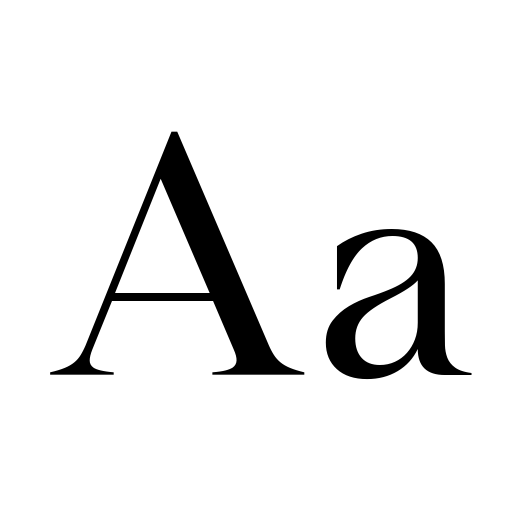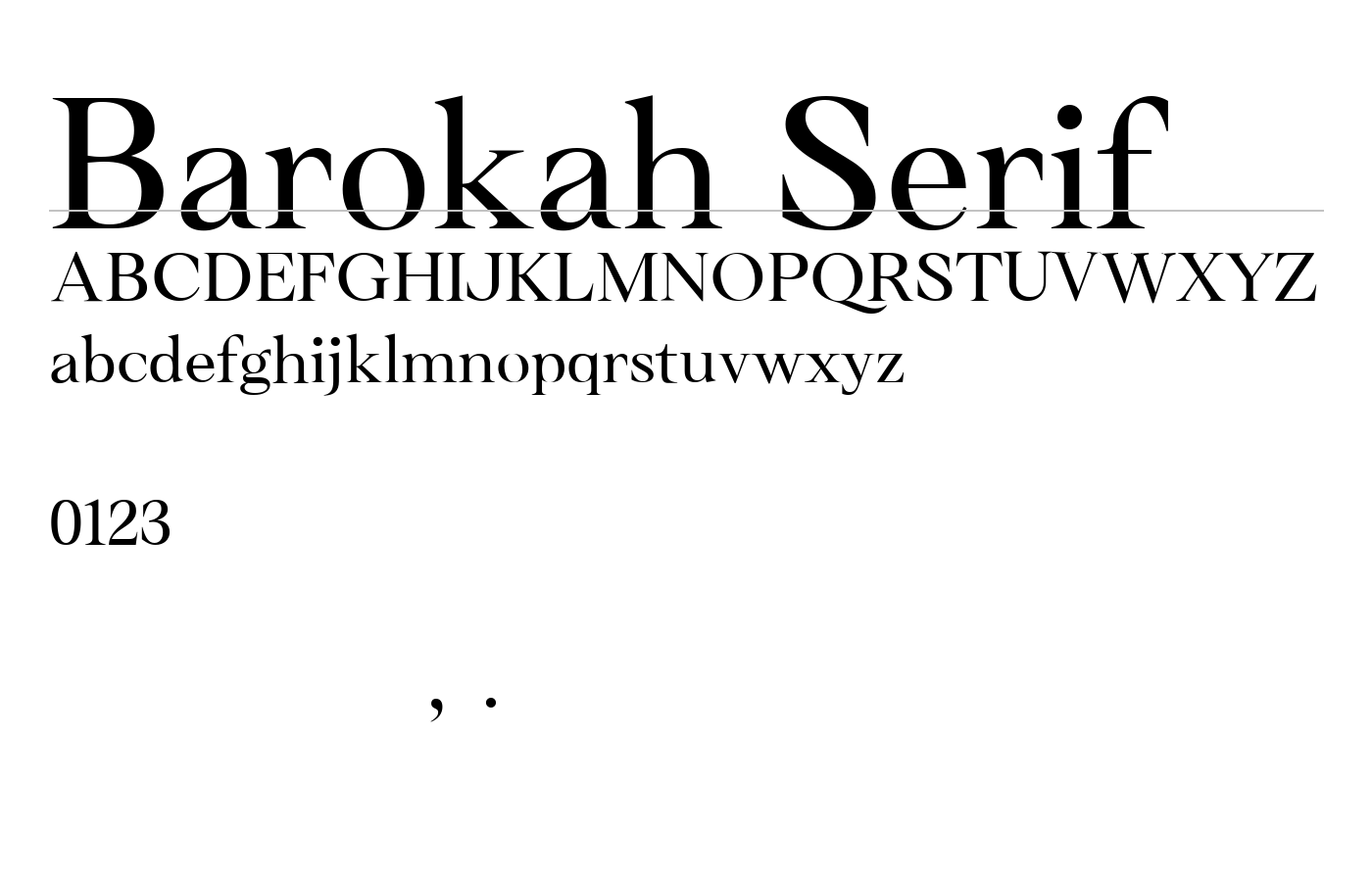
Barokah Serif is a refined serif typeface that blends classic elegance with modern clarity. It features high contrast between thick and thin strokes, delicate bracketed serifs, and a moderate x-height that enhances readability while preserving a sophisticated, timeless feel. Ideal for editorial design, luxury branding, and formal headlines, this font conveys grace and professionalism in an approachable yet distinguished manner.
Barokah Serif Font
About Barokah Serif Font
| Font family | Barokah Serif Font |
| Designer | ALIFINART STUDIO |